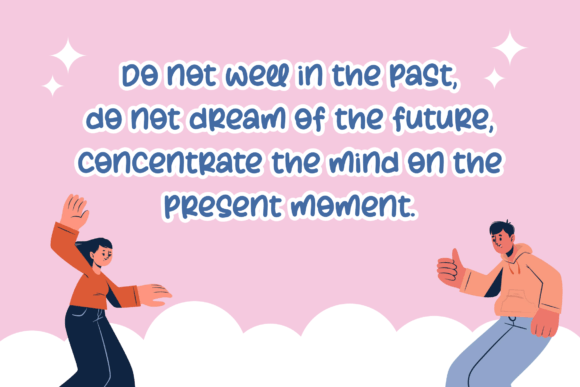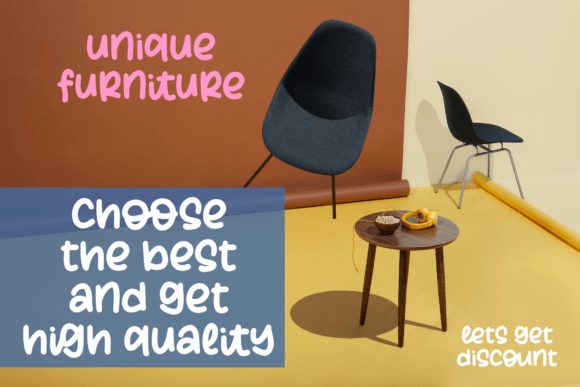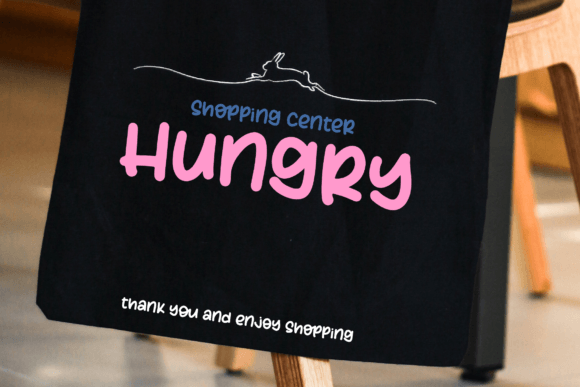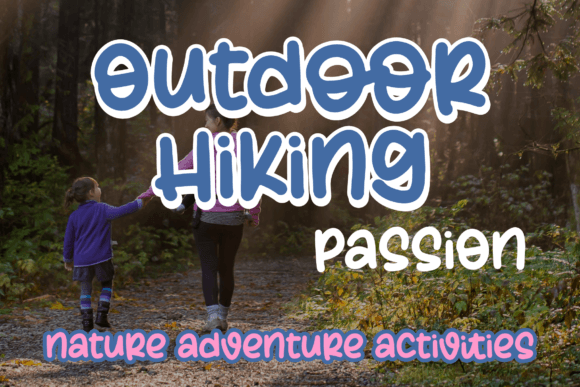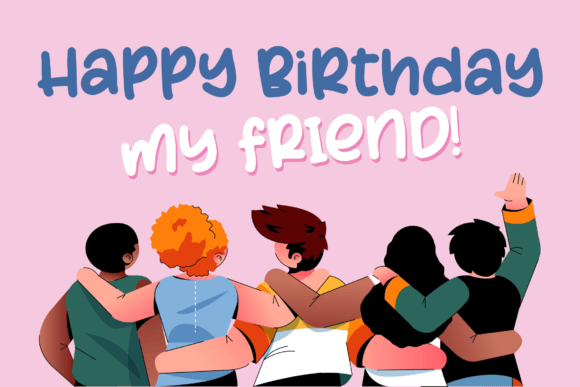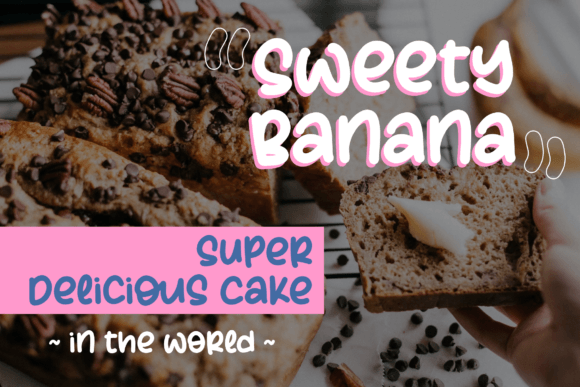
Introduction to Milkshake Creps Font Font
Fonts play a crucial role in design, and the Milkshake Creps Font font is a typeface that brings both character and versatility to any project. Whether you’re working on a branding project, a website, or a print design, the Milkshake Creps Font font offers a unique style that can elevate your work.
Milkshake Creps is a friendly hand-lettered typeface with charm and style.
This font is perfect for quotes, headings, logos, branding, merchandise, and websites .
Key Features of Milkshake Creps Font Font
Why Choose Milkshake Creps Font Font?
The Milkshake Creps Font font is more than just a typeface – it’s a design tool that helps you communicate your message with style and clarity. Its unique character set and versatile design make it suitable for a wide range of applications, from elegant invitations to bold headlines.
With its carefully crafted letterforms and balanced proportions, the Milkshake Creps Font font ensures readability and visual appeal across all mediums.
What makes Milkshake Creps Font font special?
The Milkshake Creps Font font stands out with its unique design, exceptional readability, and versatility across various design applications.